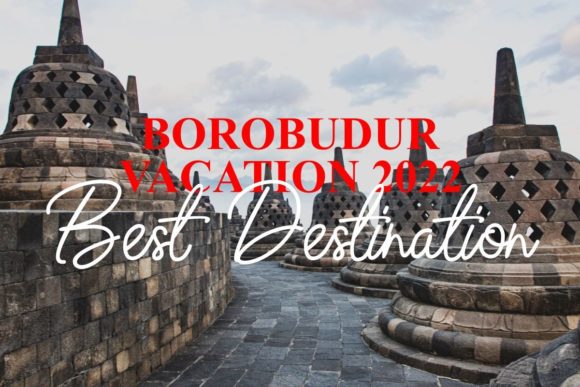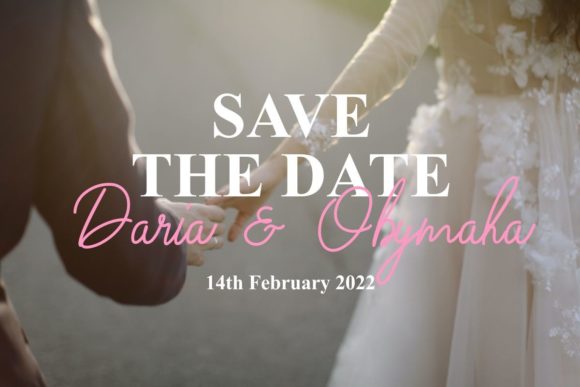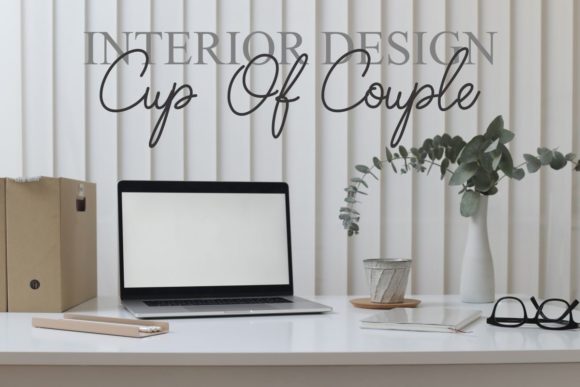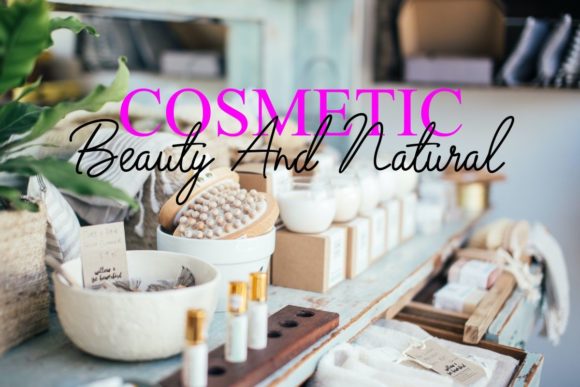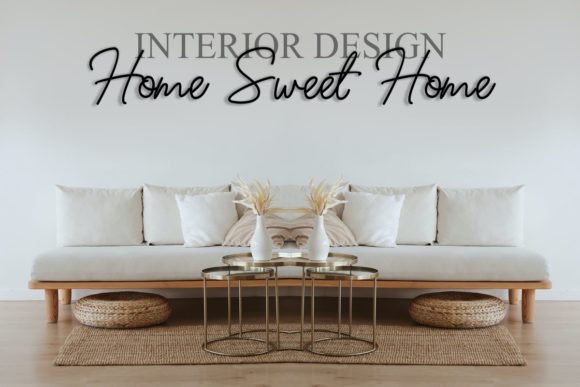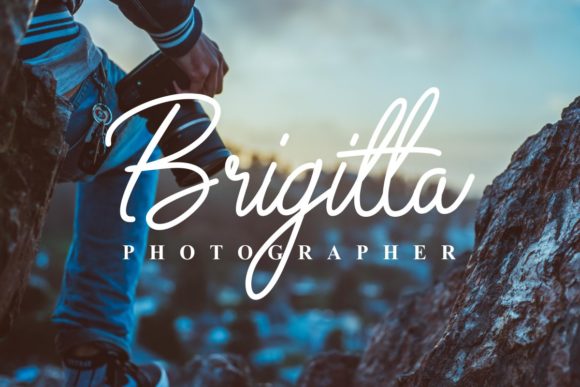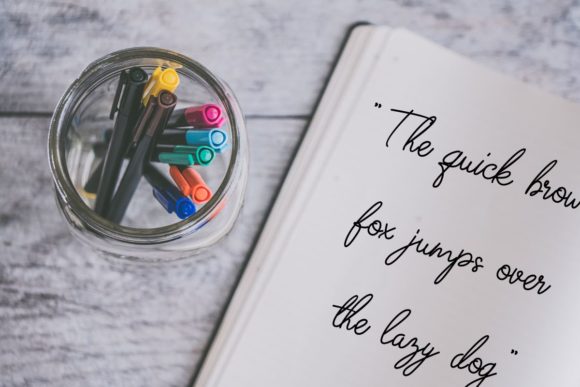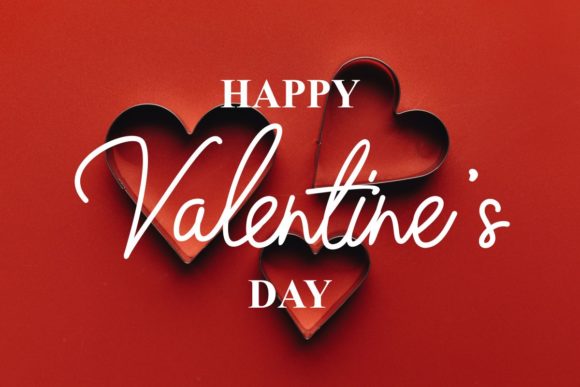
Brigitta Signature Font
About Brigitta Signature Font
Brigitta Signature is an exquisite handwritten font, masterfully designed to become a true favorite. It maintains its classy calligraphic influences while feeling contemporary and fresh.